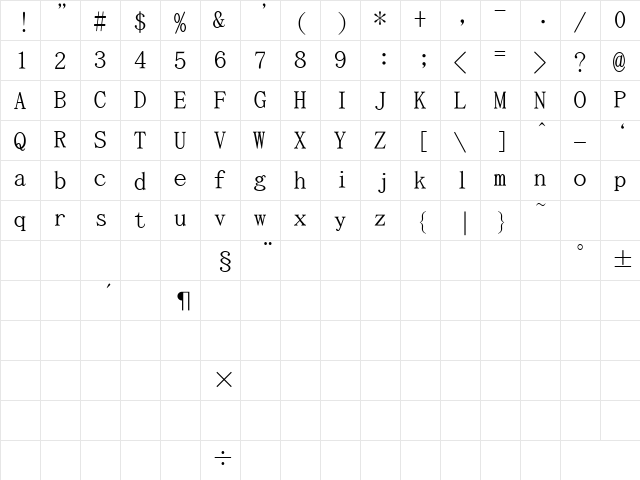
Kochi Mincho Regular
Design Context for Kochi Mincho Typeface
Kochi Mincho is a composed and adaptable typeface that performs quietly and consistently across a wide range of design contexts.